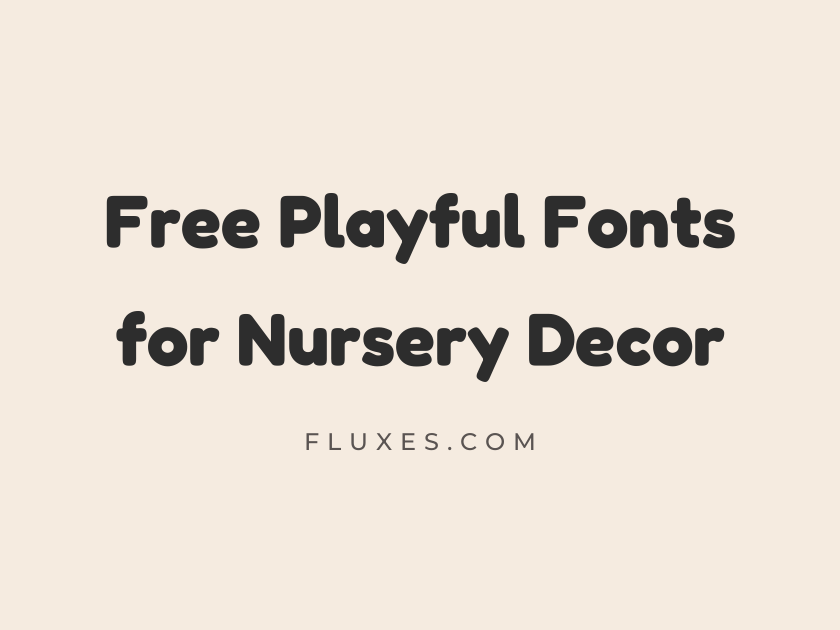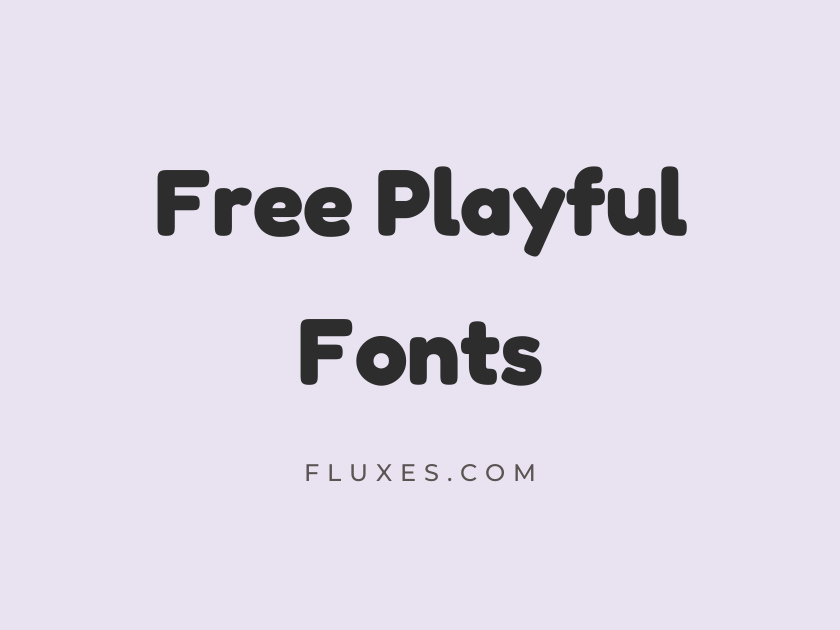
69 Best Free Playful Fonts
Playful fonts are the fastest way to signal fun before a single word is read. They show up on birthday invitations, snack packaging, kids’ apps, ice cream shop signage, toy branding, and any social post that wants to feel warm rather than corporate. Because playful design covers so much ground, from bouncy hand lettering to bubble-lettered display type to loose casual scripts, a good type library needs several distinct flavors rather than one bubbly font doing all the work. Every option here is free on Google Fonts, so you can download and self-host or pull from the CDN without licensing headaches.
1. Fredoka
Bounce into the party with balloons and cake
Rounded terminals and generous curves make this one of the most reached-for friendly sans options on Google Fonts, equally at home in a children’s app interface or a bakery logo. It reads clearly at small sizes too, which is rarer than it should be among chunky rounded fonts.
2. Baloo 2
Stickers, streamers, and confetti everywhere
Baloo 2 carries the soft, pillowy weight of South Asian display lettering translated into a clean Latin family. It works hard in headlines for toy packaging and kids’ books without ever looking stiff.
3. Chewy
Gummy candy shapes in every color
Thick, cartoonish, and a little bit sticky-looking, Chewy was practically built for candy branding and playground signage. Use it big and sparingly; at body text sizes the letterforms blob together.
4. Sniglet
Bubbles float up past the treehouse window
Sniglet has the soft, inflated look of a font drawn with a marker on a balloon. It pairs nicely with a plainer rounded sans for body copy since it gets busy in long passages.
5. Slackey
Skateboards, stickers, and backyard adventure
There’s a scrappy, skate-park energy to Slackey that separates it from the softer bubble fonts on this list. It suits youth brands that want playful without tipping into babyish.
6. Bangers
POW! Comic book action erupts on the page
Modeled on mid-century comic lettering, Bangers shouts. It’s the obvious pick for speech bubbles, sale badges, and anything that wants the energy of a cartoon sound effect, though it should stay in all caps and short bursts to keep its punch.
7. Luckiest Guy
Carnival rides light up the summer sky
Luckiest Guy has a hand-painted, circus-poster wobble that makes it a favorite for logos wanting a friendly, slightly retro cartoon voice. It’s become common enough that a distinctive color treatment helps it stand apart from lookalike brands.
8. Bungee
Neon signs buzz over the boardwalk arcade
Bungee borrows its blocky confidence from urban signage and street typography, giving it a playful swagger that reads well from a distance. It’s built as a display font first, so save it for titles rather than paragraphs.
9. Bungee Shade
Roller rink lights spin in bright layers
This layered variant adds a drop-shadow dimension right into the glyphs, so headlines get built-in depth without any extra design work. It looks best at large sizes where the shadow effect actually registers.
10. Bungee Inline
Skateboard graphics and sticker pack lettering
An outlined take on the same bold city-sign structure, Bungee Inline gives you a hollow, sticker-like letterform that suits patches, badges, and playful merch design.
11. Boogaloo
Disco balls spin over the dance floor
Boogaloo has a groovy, slightly wobbly roundness that feels lifted from a 1970s poster. It’s a strong choice whenever a brand wants retro fun rather than modern minimalism.
12. Titan One
Champion trophies and victory confetti cannons
Fat, inflated, and confident, Titan One reads like a title card from a kids’ cartoon. It carries sale banners and game logos well but gets visually loud fast, so one word or a short phrase is usually plenty.
13. Bowlby One
Big bold letters for the school fair
Bowlby One has a heavy, rounded-corner boldness that feels friendly rather than aggressive, making it a solid pick for youth event posters and packaging headlines.
14. Bowlby One SC
LEMONADE STAND OPEN ALL SUMMER
This small-caps sibling trades lowercase letters for a uniform row of chunky capitals, useful when a design needs Bowlby’s personality but a tighter, more even texture across a headline.
15. Alfa Slab One
Popcorn, peanuts, and cold soda here
A heavyweight slab with rounded slab serifs, Alfa Slab One brings a circus-poster boldness that still feels legible and grounded. It plays well with a lighter script for a fairground-style pairing.
16. Bevan
Old-fashioned toy shop grand opening today
Bevan has a sturdy, hand-carved slab quality that nods to vintage advertising rather than cartoon exaggeration, giving it a nostalgic, storybook charm.
17. Passion One
Face paint, balloons, and a bouncy castle
Rounded and compact, Passion One has enough heft to anchor a poster headline while keeping a friendly, approachable shape. It’s a dependable workhorse when you need bold without full cartoon energy.
When designing for the web, load only the weights actually used. Playful branding rarely needs a full family, and trimming weights keeps pages fast.
Playful type is less about picking one clever font and more about building a small kit: a bold display voice for headlines, a rounded sans for readable body text, and maybe one handwritten accent for warmth. With this many free options on Google Fonts, there is no shortage of ways to make a brand, invitation, or app feel genuinely fun to read.